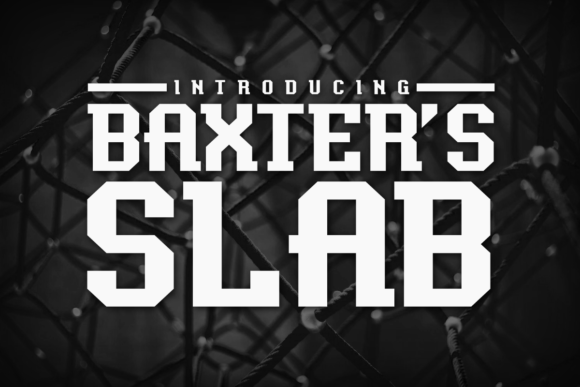
Baxter’s Slab Font: A Beautiful Typeface for Your Design Projects
Baxter’s Slab is a beautiful typeface which can be used for various design projects. This stunning slab serif font is designed to add a touch of elegance and sophistication to your designs. Whether you’re a designer, crafter, or DIY enthusiast, Baxter’s Slab is an excellent choice for your typography needs.
What is Baxter’s Slab Font?
Baxter’s Slab is a slab serif font, characterized by its thick, block-like serifs. This typeface is inspired by traditional serif fonts, but with a modern twist. The font features a clean and simple design, making it highly legible and versatile. The slab serifs add a touch of boldness and confidence to the font, making it perfect for headlines, titles, and emphasis text.
Key Features of Baxter’s Slab Font
• Unique Slab Serif Design: Baxter’s Slab features a distinctive slab serif design that sets it apart from other serif fonts.
• Clean and Simple: The font has a clean and simple design, making it easy to read and highly legible.
• Versatile: Baxter’s Slab can be used for a wide range of design projects, from print to digital media.
• Elegant and Sophisticated: The font adds a touch of elegance and sophistication to your designs, making it perfect for high-end branding and advertising.
Uses of Baxter’s Slab Font
Baxter’s Slab is a versatile font that can be used for various design projects, including:
• Branding and Logo Design: The font’s unique slab serif design makes it perfect for creating bold and eye-catching logos.
• Advertising and Marketing: Baxter’s Slab is an excellent choice for headlines and titles in advertising and marketing materials.
• Packaging Design: The font’s clean and simple design makes it suitable for packaging design, adding a touch of elegance to product labels and packaging.
• Web Design: Baxter’s Slab can be used for web design, adding a touch of sophistication to website headers, titles, and emphasis text.
Benefits of Using Baxter’s Slab Font
Using Baxter’s Slab font offers several benefits, including:
• Improved Readability: The font’s clean and simple design makes it easy to read, even at small font sizes.
• Enhanced Visual Appeal: The unique slab serif design adds a touch of elegance and sophistication to your designs.
• Versatility: Baxter’s Slab can be used for a wide range of design projects, making it a valuable addition to your font library.
• Time-Saving: The font’s versatility and legibility save you time and effort in designing and redesigning your projects.
Tips for Using Baxter’s Slab Font
To get the most out of Baxter’s Slab font, follow these tips:
• Use it for Headlines and Titles: The font’s bold and eye-catching design makes it perfect for headlines and titles.
• Experiment with Font Sizes: Baxter’s Slab is highly legible at various font sizes, so experiment with different sizes to find the perfect fit for your design.
• Pair it with Other Fonts: The font pairs well with other serif and sans-serif fonts, so experiment with different font combinations to create a unique look.
Baxter’s Slab is a beautiful typeface that can elevate your design projects to the next level. Its unique slab serif design, clean and simple aesthetic, and versatility make it an excellent choice for designers, crafters, and DIY enthusiasts. With its improved readability, enhanced visual appeal, and time-saving benefits, Baxter’s Slab is a valuable addition to your font library.